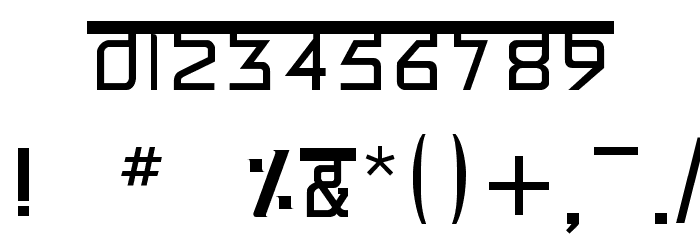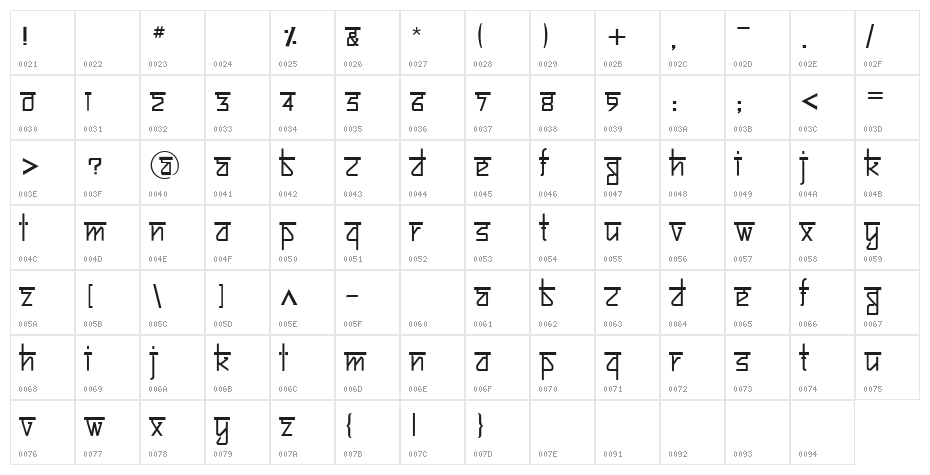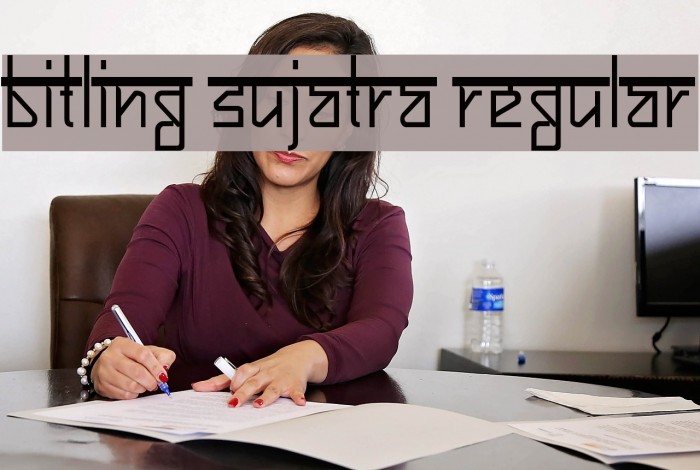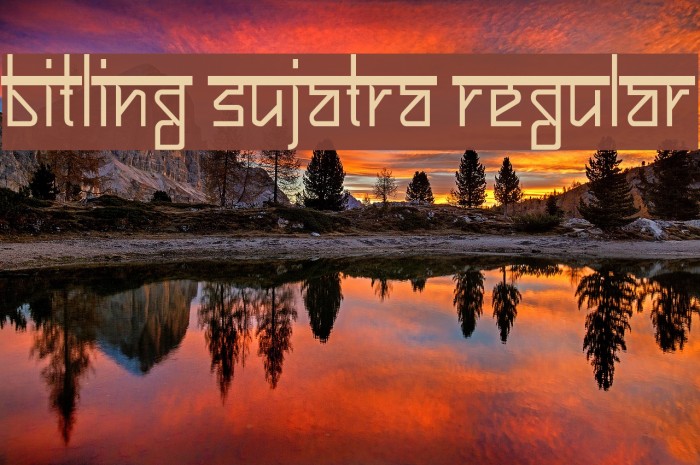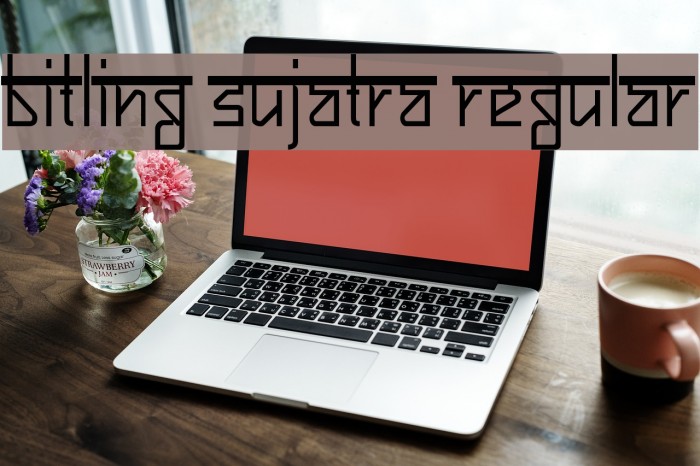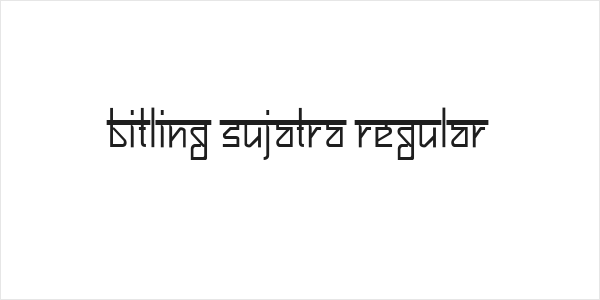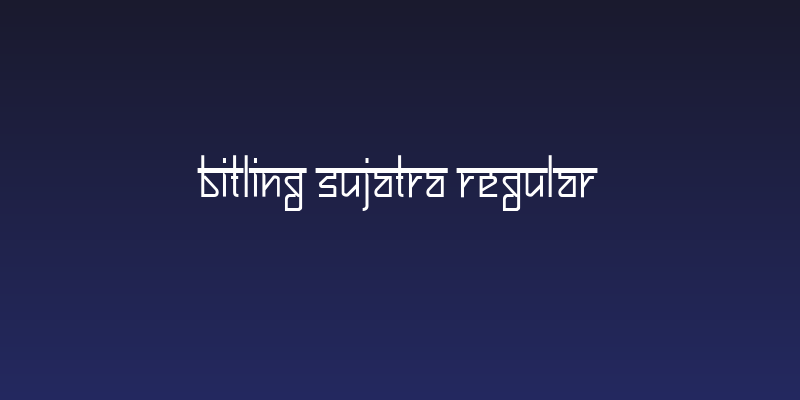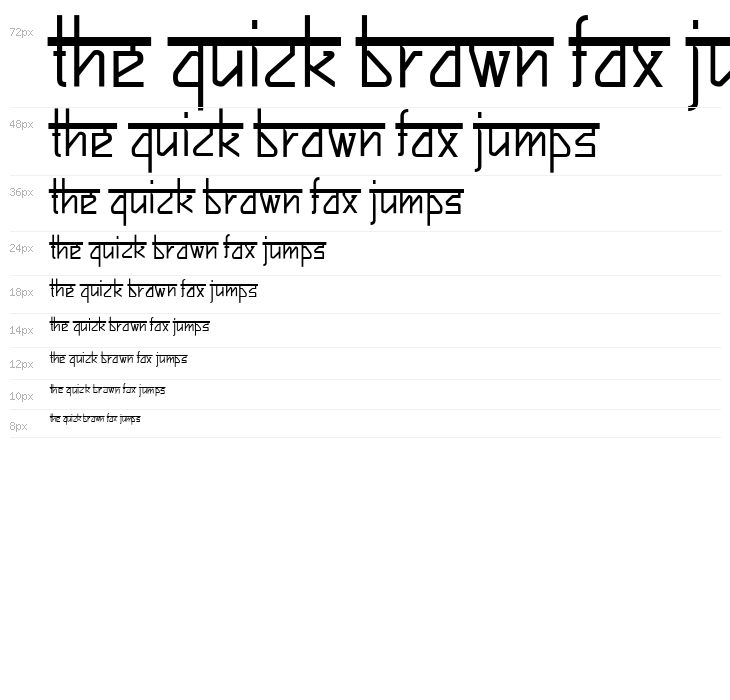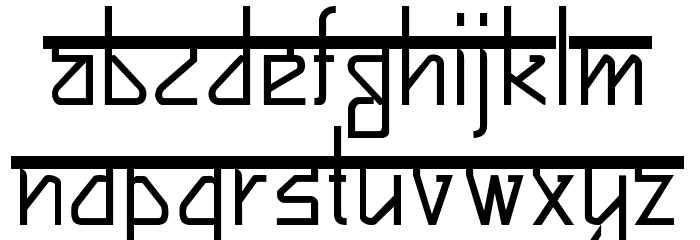
Bitling sujatra Regular Font
Bitling sujatra Regular Description
This font features a unique and modern geometric design with a distinct angular style. The characters are constructed with clean, straight lines and sharp angles, giving it a futuristic and technical appearance. The uppercase and lowercase letters maintain a consistent height, while the numerals and special characters complement the overall aesthetic. The font's structure is minimalistic yet bold, making it suitable for attention-grabbing designs. Its distinctiveness lies in the unconventional shapes of letters like 'a', 'e', and 'g', which add a creative flair. The uniformity in stroke width across all characters provides a cohesive look, enhancing readability while maintaining its decorative appeal.
| Proposed Projects | Ideal for tech-related branding, modern posters, digital interfaces, and innovative product packaging. |